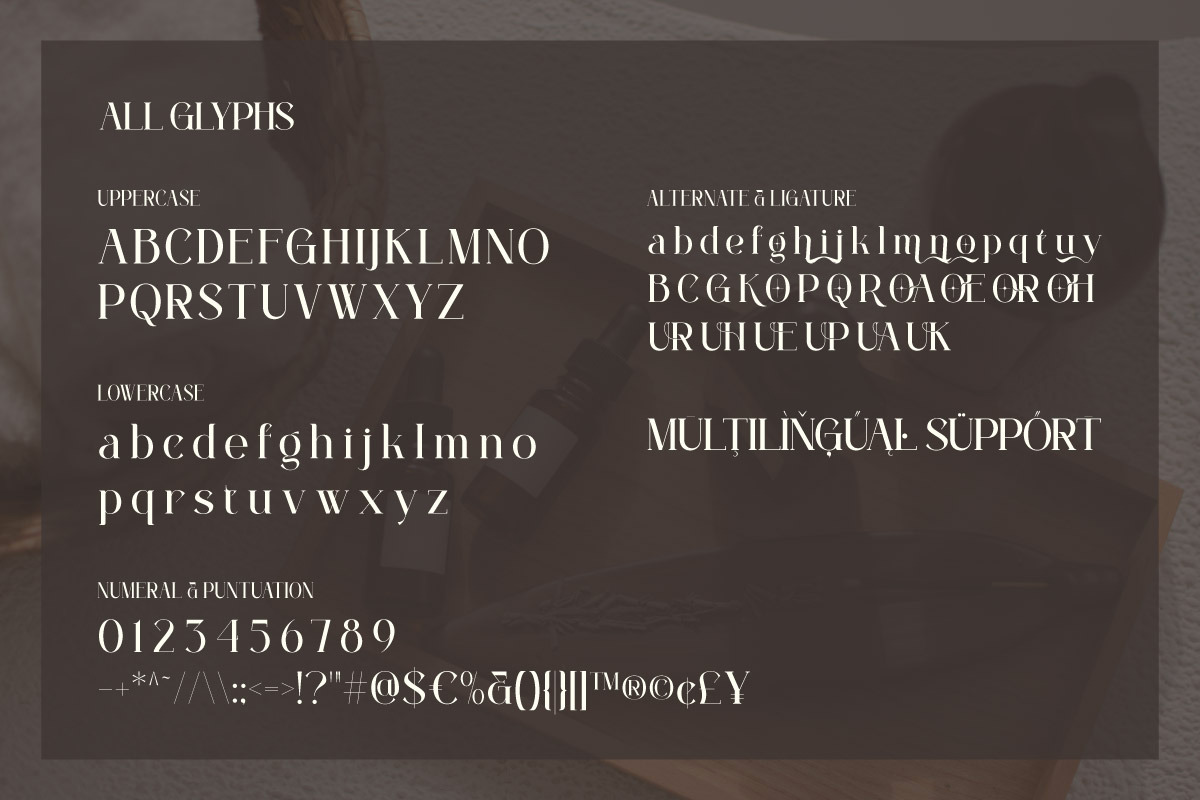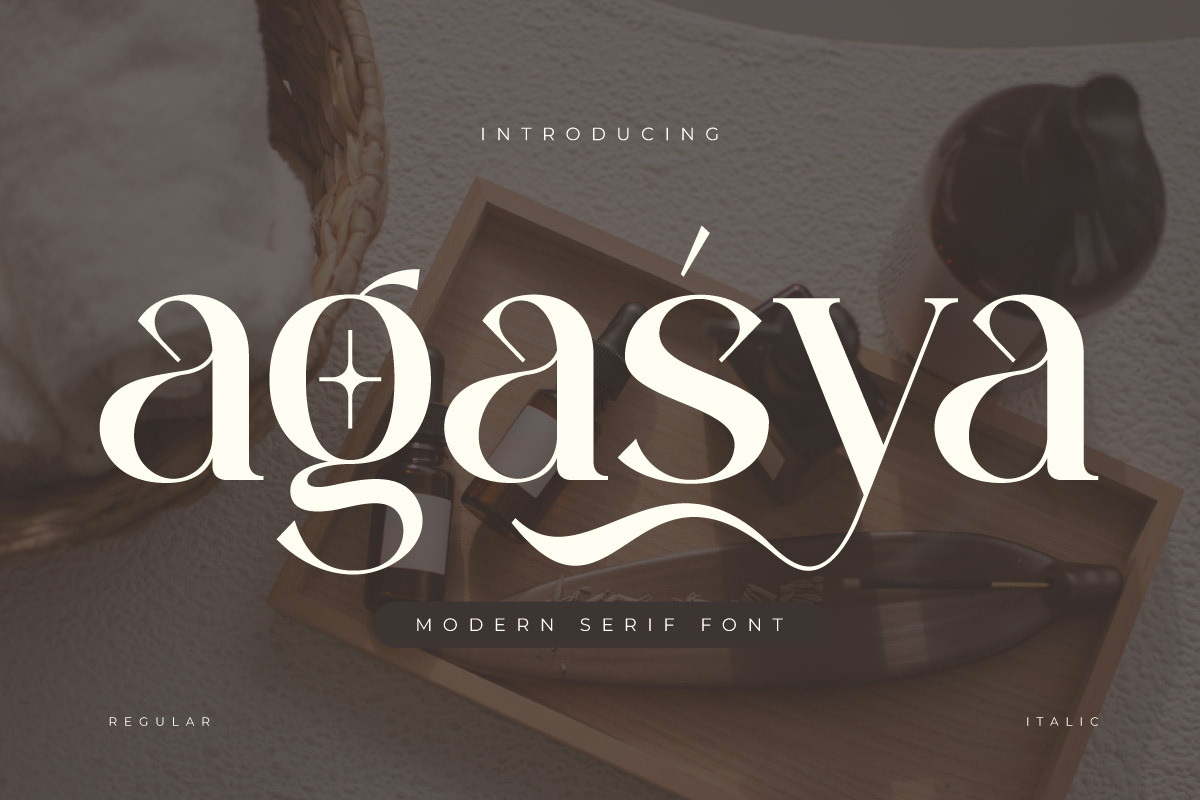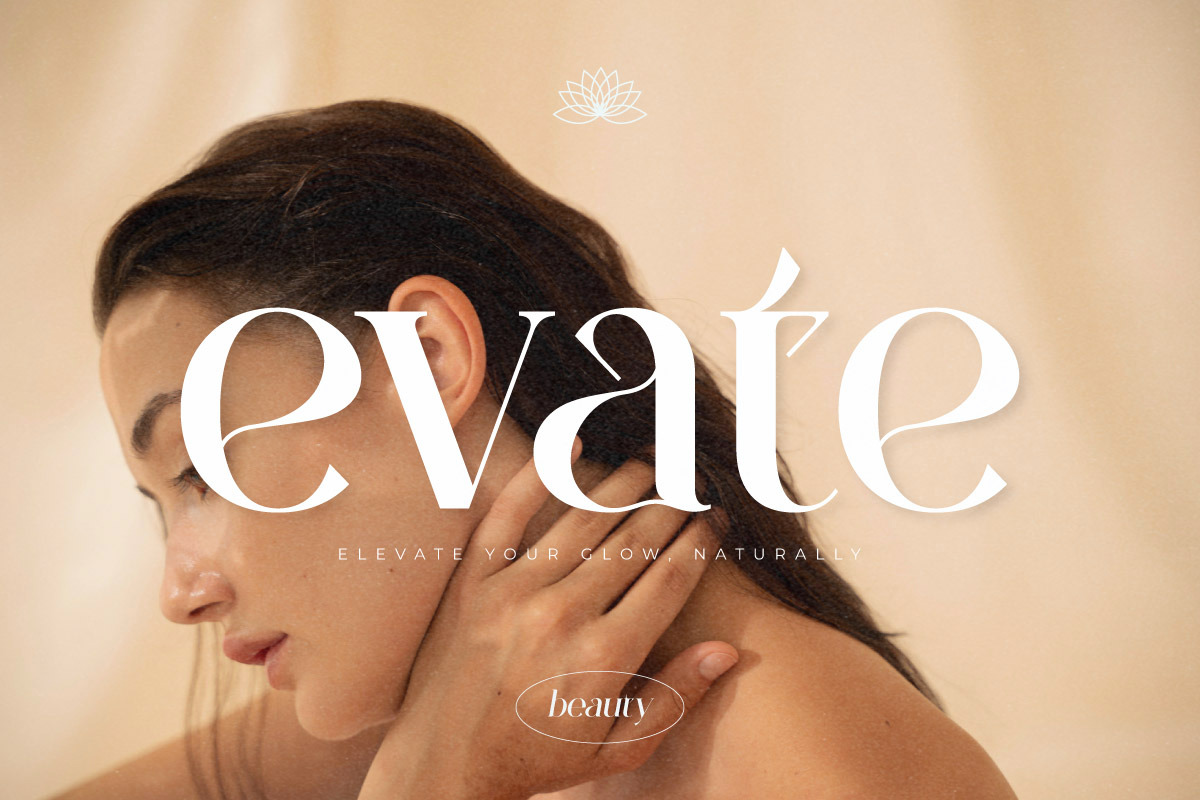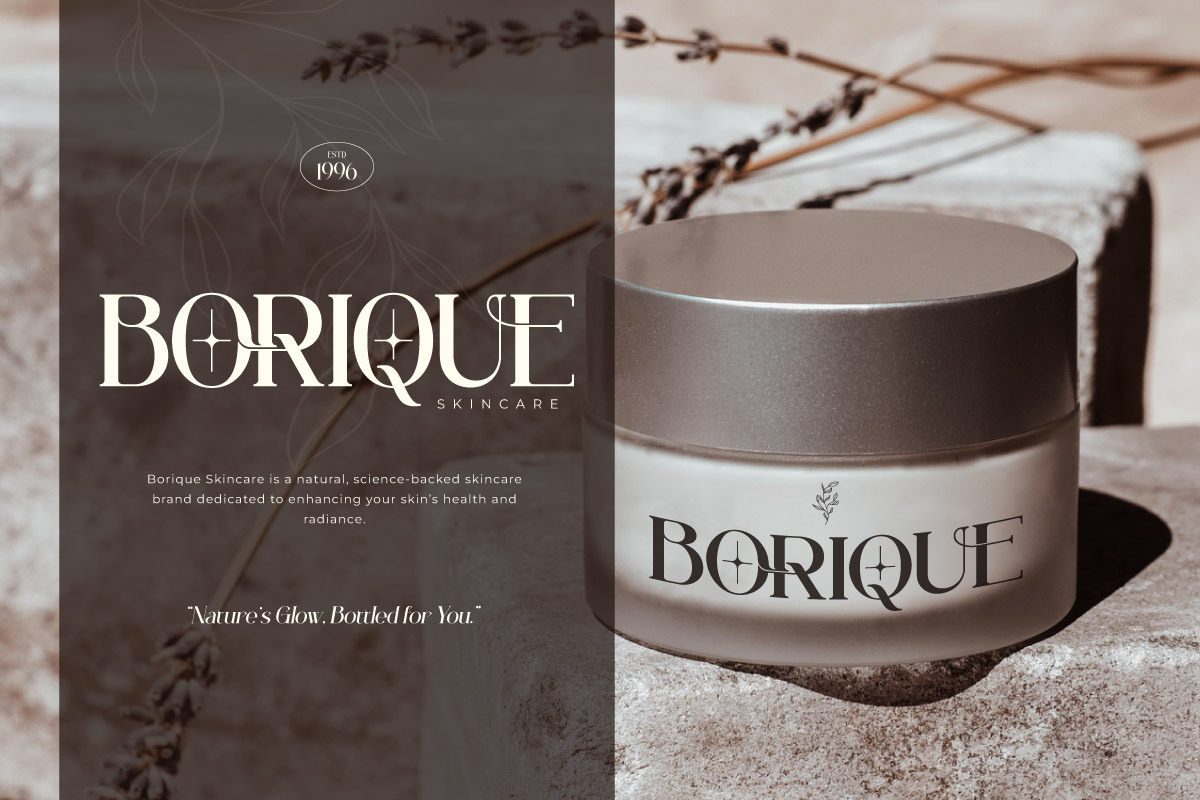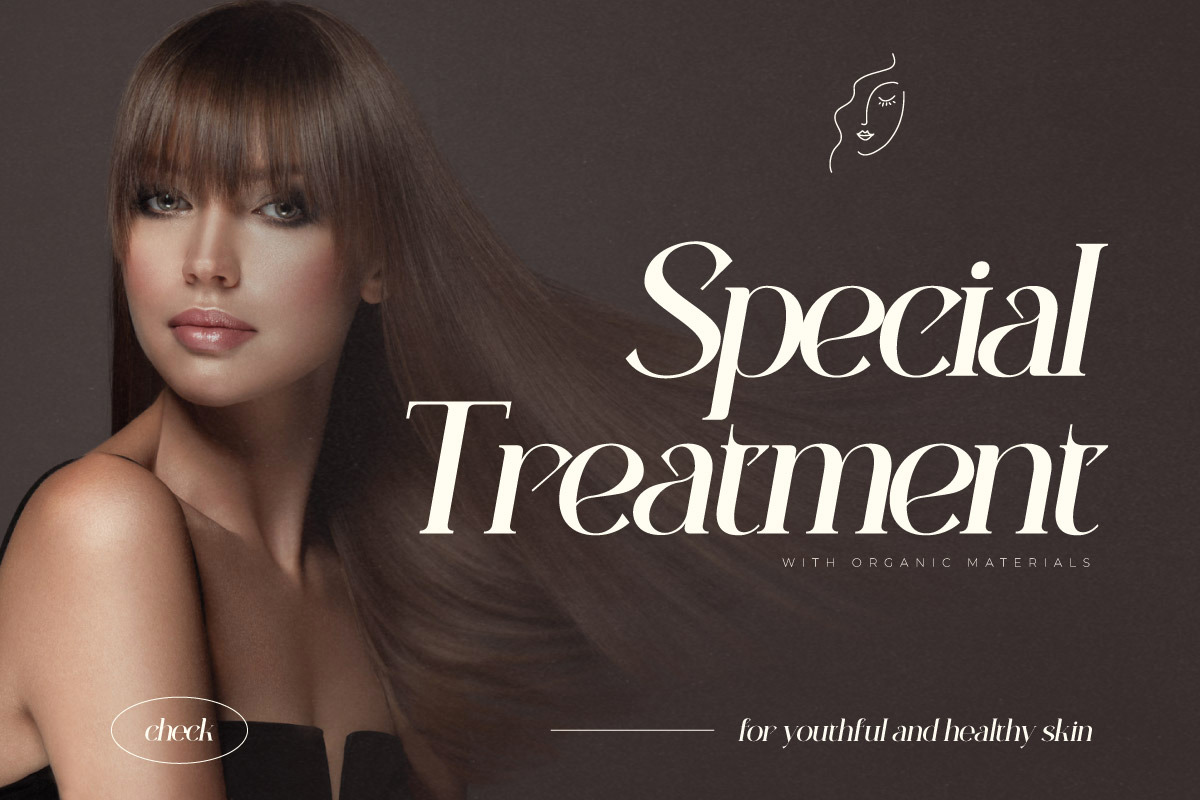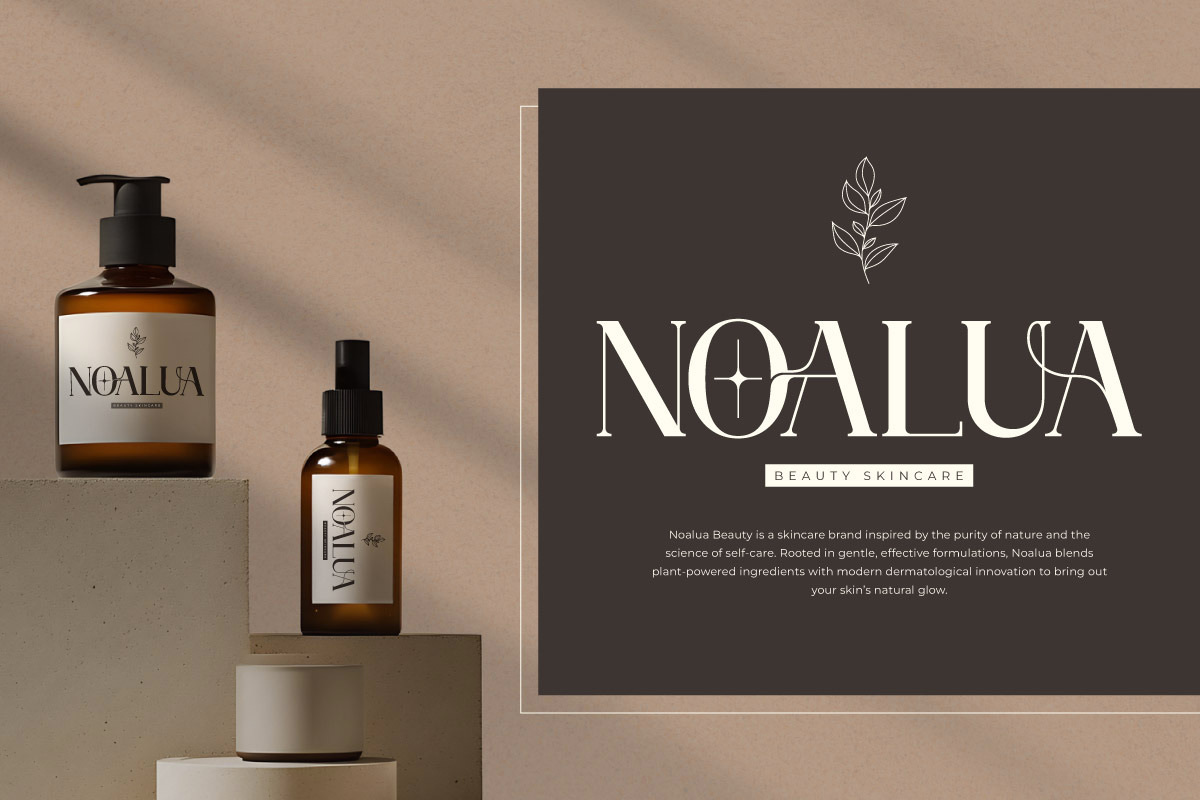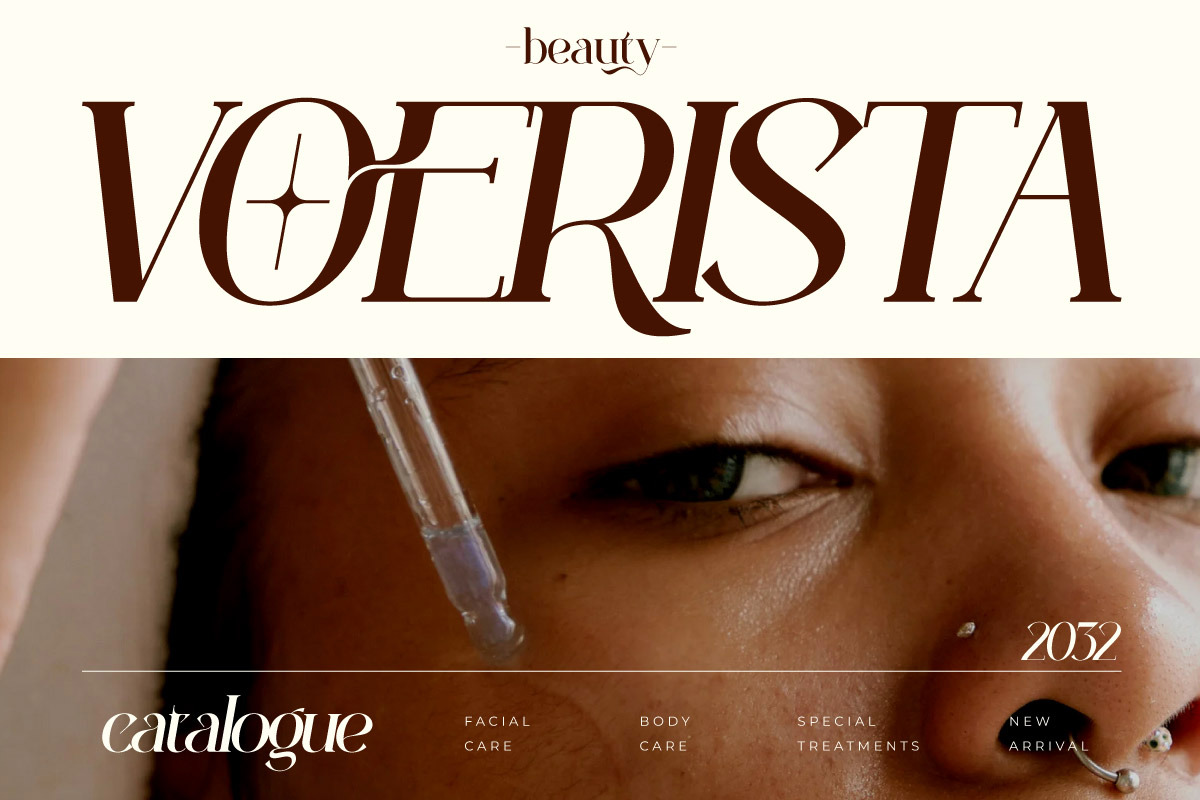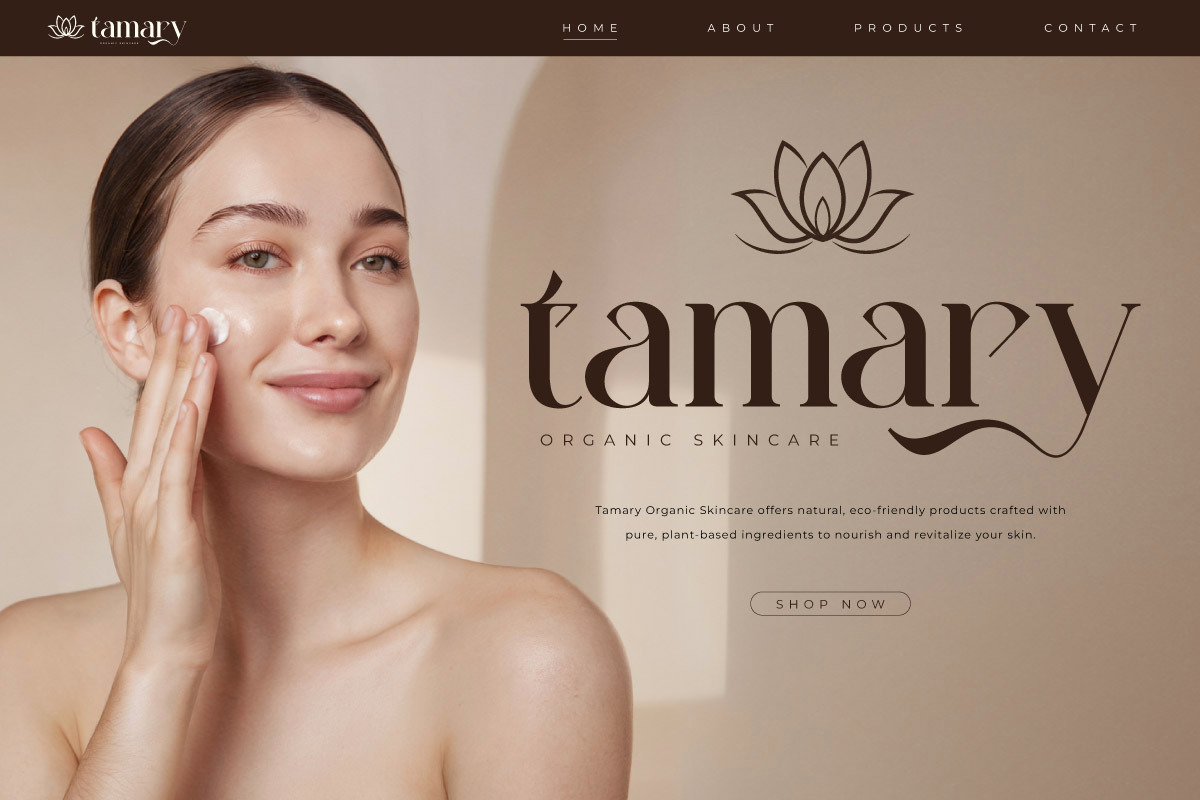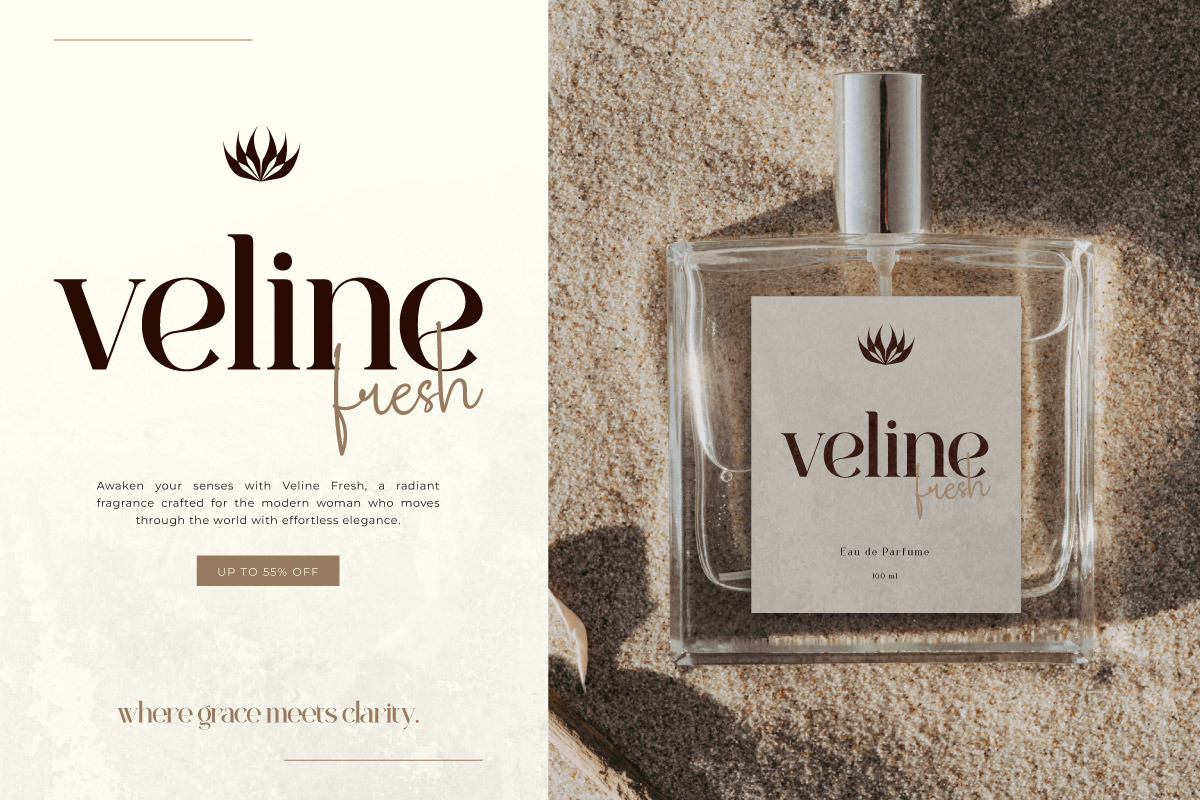
Agasya - Modern Serif Font
Agasya is a refined modern serif font that blends elegance with versatility. Designed with clean serifs, balanced proportions, and contemporary flair, Agasya exudes a timeless charm that works beautifully across both print and digital media. With both Regular and Italic styles included, this font provides flexibility for creative expression—whether you're crafting sophisticated branding, editorial layouts, fashion campaigns, or elegant invitations.
Each character in Agasya is carefully designed to convey professionalism and style, making it ideal for modern luxury brands, beauty and cosmetic packaging, and high-end typography. The italic variant adds a graceful, stylish touch that enhances emphasis and contrast in your compositions.
Agasya supports multilingual characters, punctuation, and is compatible with major design software, ensuring smooth workflow integration for designers of all levels. Whether you’re aiming for classic chic or modern minimalism, Agasya brings clarity, confidence, and class to your work.
- Fonts include Multilingual: Support for 85 languages. Afrikaans, Albanian, Asu, Basque, Bemba, Bena, Breton, Catalan, Chiga, Cornish, Croatian, Czech, Danish, Dutch, Embu, English, Esperanto, Estonian, Filipino, Finnish, French, Friulian, Galician, Gusii, Hungarian, Indonesian, Irish, Italian, Kabuverdianu, Kalenjin, Kamba, Kikuyu, Kinyarwanda, Latvian, Lithuanian, Lower, Sorbian, Luo, Luxembourgish, Luyia, Machame, Makhuwa-Meetto, Makonde, Malagasy, Maltese, Manx, Meru, Morisyen, North, Ndebele, Norwegian Bokmål, Norwegian Nynorsk, Nyankole, Oromo, Polish, Portuguese, Quechua, Romanian, Romansh, Rombo, Rundi, Rwa, Samburu, Sango, Sangu, Scottish, Gaelic, Sena, Serbian, Shambala, Shona, Slovak, Slovenian, Soga, Somali, Spanish, Swahili, Swedish, Swiss German, Taita, Teso, Turkish, Upper Sorbian, Uzbek (Latin), Volapük, Vunjo, Walser, Zulu.